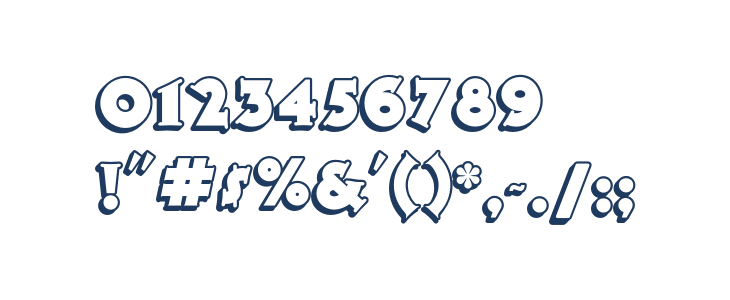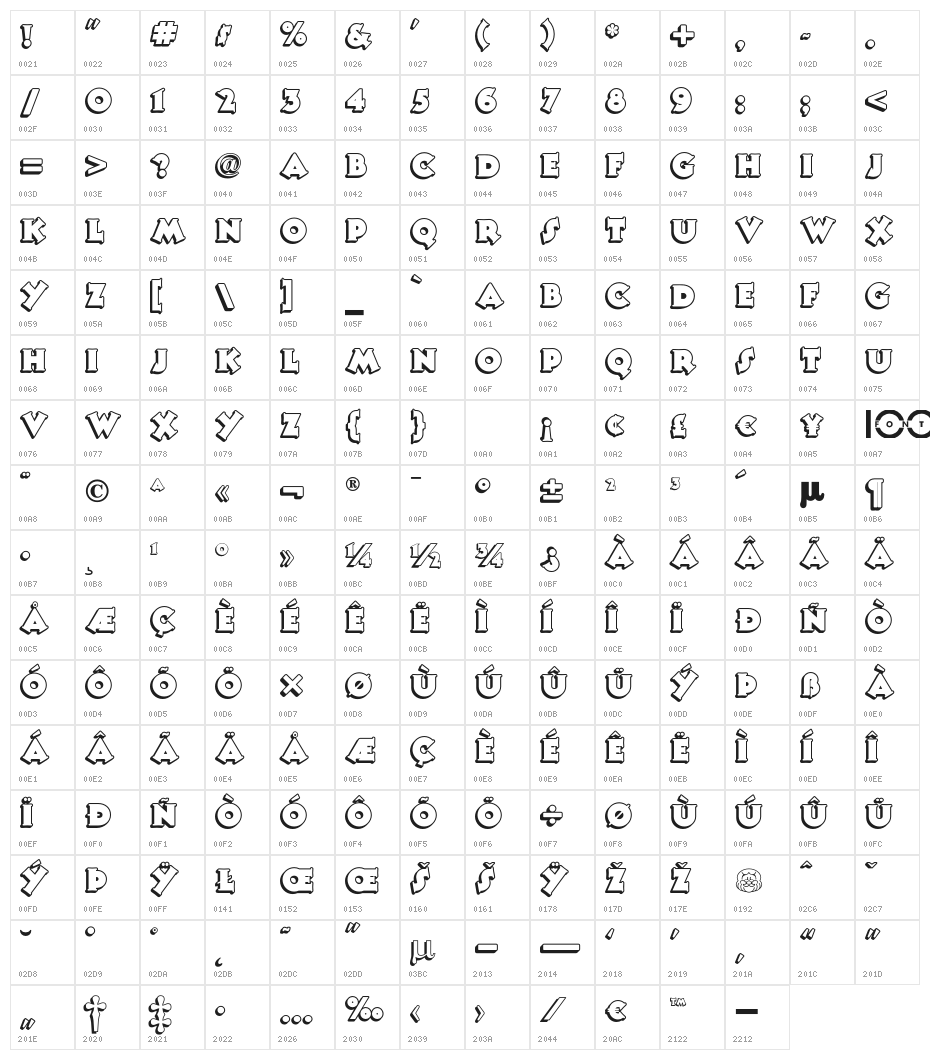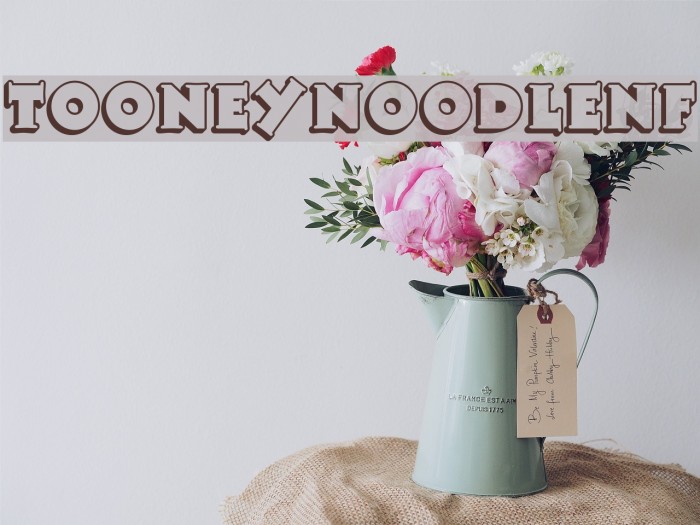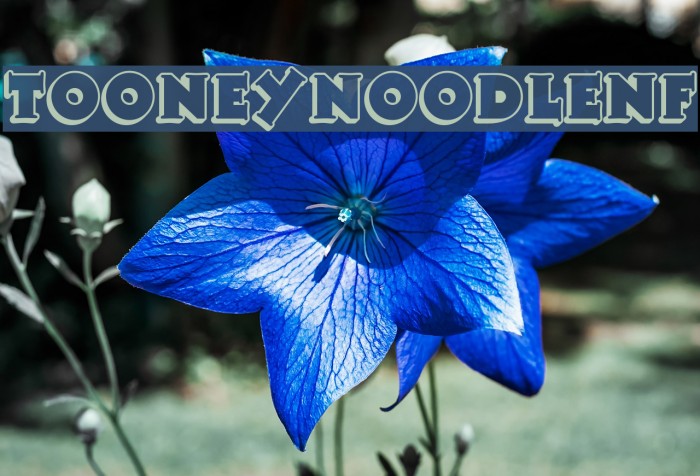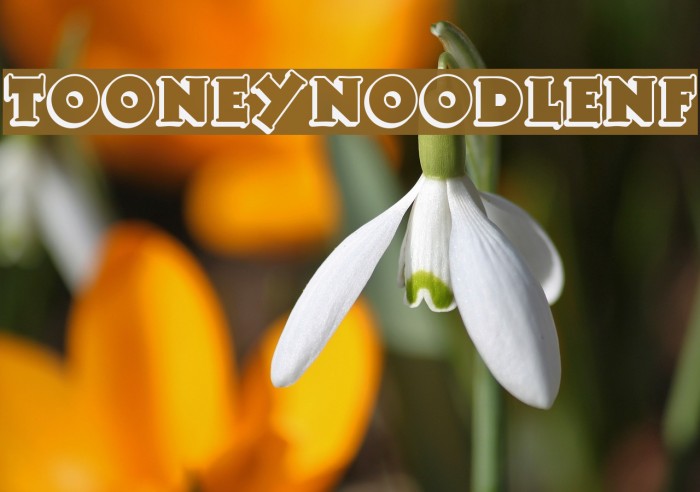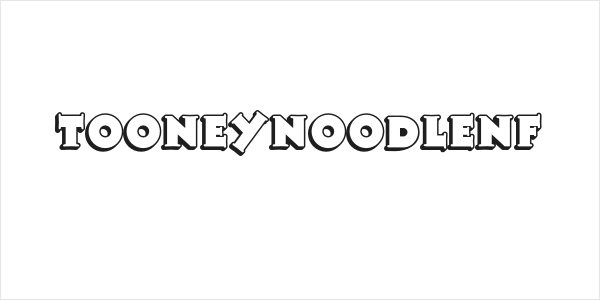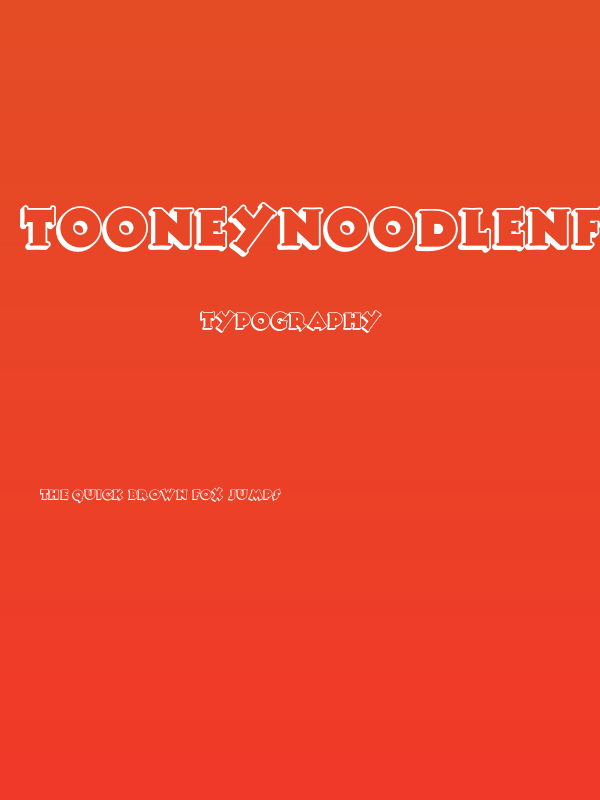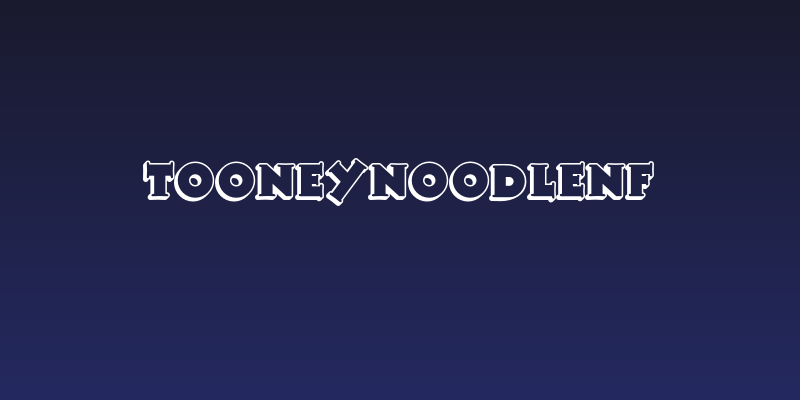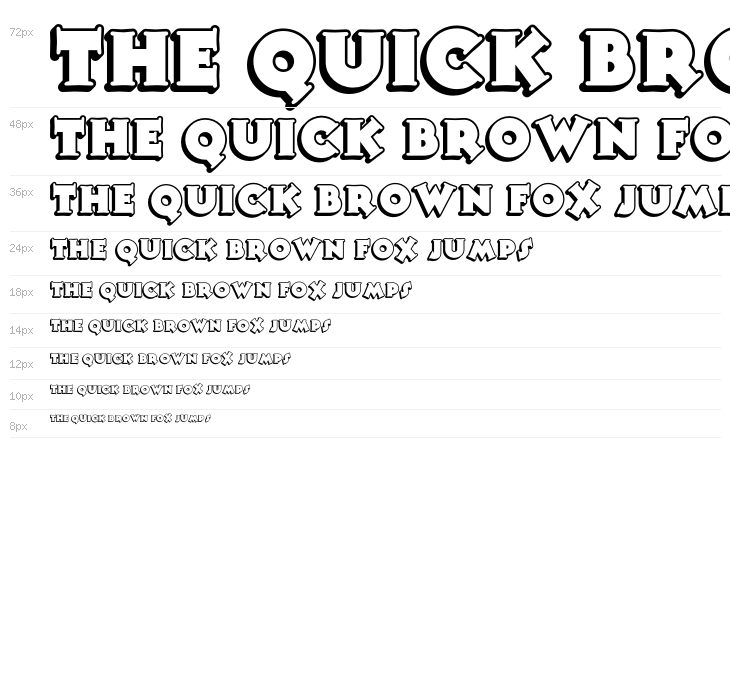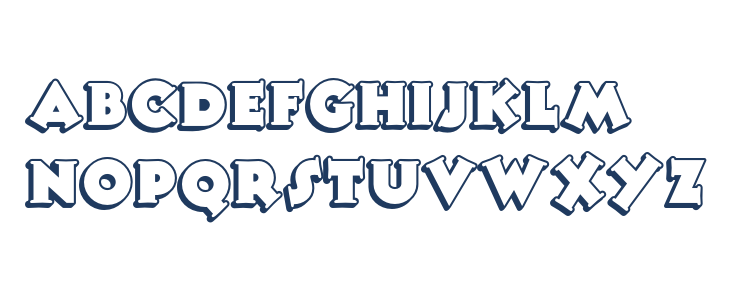
TooneyNoodleNF Font
TooneyNoodleNF Description
This playful and bold font features a cartoonish style with thick, exaggerated strokes and a strong black outline. The characters have a whimsical, bouncy appearance, making them ideal for fun and engaging designs. The uppercase and lowercase letters maintain a consistent style, with rounded edges and a slightly condensed form. Numbers and special characters follow the same lively design, ensuring a cohesive look across all elements. The font's unique personality is perfect for projects that require a touch of humor and creativity.
| Overall Style | Playful, Cartoonish |
| Proposed Projects | Ideal for children's books, comic strips, playful branding, and party invitations. |